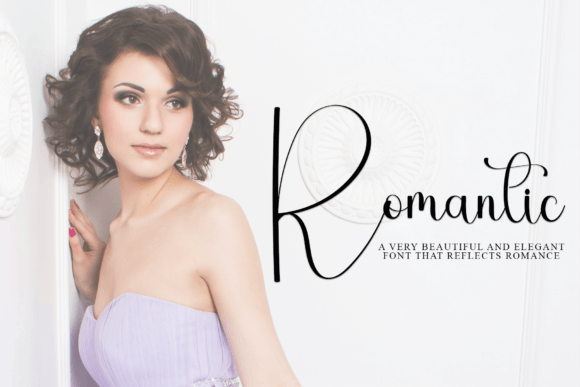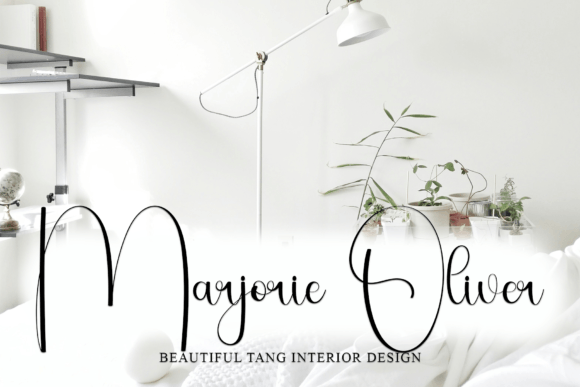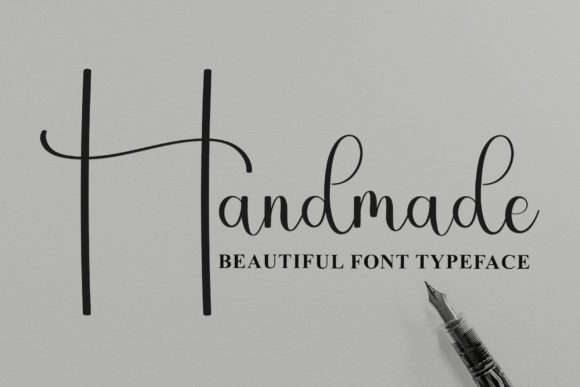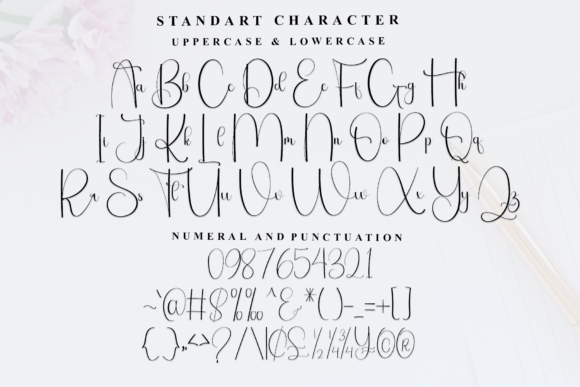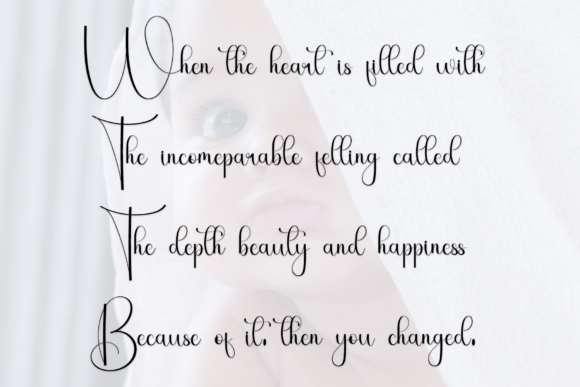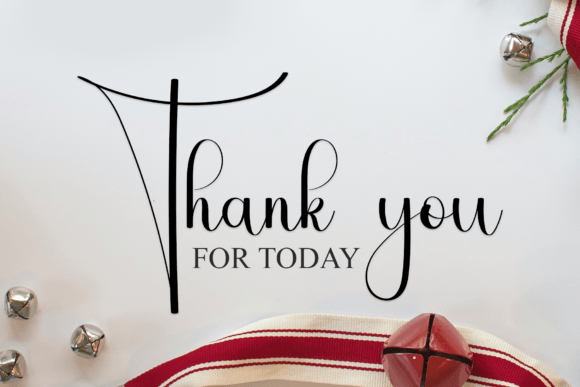
Babydoll Font: Spread Holiday Cheer with this Festive Typeface
The holiday season is upon us, and what better way to get into the spirit than with a font that’s as merry and bright as the twinkling lights on your Christmas tree? Look no further than the Babydoll Font, a delightful typeface that’s sure to add a touch of charm to your designs. In this article, we’ll dive into the details of this festive font, exploring its unique features, uses, and benefits for designers and crafters alike.
A Festive and Happy Typeface
Babydoll Font is a decorative typeface that’s specifically designed to capture the spirit of the holiday season. Its playful, cheerful design is perfect for creating festive and fun designs that are sure to put a smile on anyone’s face. With its unique flair and decorative elements, this font is sure to add a touch of magic to your projects.
Whether you’re designing greeting cards, gift labels, or holiday-themed projects, Babydoll Font is the perfect choice. Its bold, yet elegant design makes it easy to read and understand, while its decorative elements add a touch of whimsy and fun. Imagine creating a set of holiday greeting cards with Babydoll Font as the main attraction. The font’s playful design would surely make your cards stand out in a crowded mailbox.
Babydoll Font is a versatile typeface that’s perfect for both designers and crafters. Whether you’re creating digital designs or handmade crafts, this font is sure to inspire your creativity. Its PUA (Private Use Area) coding makes it easy to access all the amazing glyphs and ligatures, allowing you to create unique and personalized designs with ease.
For designers, Babydoll Font is a great addition to your font library. Its decorative elements and unique flair make it perfect for creating eye-catching designs that are sure to grab attention. You can use it to create festive social media graphics, holiday-themed website headers, or even custom illustrations.
For crafters, Babydoll Font is a dream come true. You can use it to create custom vinyl decals, iron-on designs, or even hand-stamped gifts. The font’s playful design makes it perfect for creating personalized gifts, such as customized mugs, tote bags, or holiday ornaments.
Key Features of Babydoll Font
So, what makes Babydoll Font so special? Here are just a few of its key features:
• Festive and happy design: Babydoll Font is specifically designed to capture the spirit of the holiday season. Its playful, cheerful design is perfect for creating festive and fun designs.
• Decorative elements: The font features decorative elements and unique flair, adding a touch of charm to your designs.
• PUA coded: Babydoll Font is PUA coded, making it easy to access all the amazing glyphs and ligatures.
• Perfect for holiday projects: The font is perfect for creating holiday-themed projects, such as greeting cards, gift labels, and festive social media graphics.
Tips for Using Babydoll Font
Here are a few tips for using Babydoll Font in your designs:
• Pair it with complementary fonts: Babydoll Font is a decorative typeface, so it’s best to pair it with complementary fonts that provide contrast and balance.
• Experiment with colors and textures: The font’s playful design makes it perfect for experimenting with colors and textures. Try adding glitter, snowflakes, or other festive elements to your designs.
• Use it for headlines and titles: Babydoll Font is perfect for headlines and titles, where its decorative elements can really shine.
In conclusion, Babydoll Font is a festive and happy typeface that’s perfect for designers and crafters alike. Its unique design, decorative elements, and PUA coding make it a versatile and fun font to work with. Whether you’re creating holiday-themed projects or just want to add a touch of cheer to your designs, Babydoll Font is the perfect choice. So why not give it a try and see how it can add some holiday magic to your work?